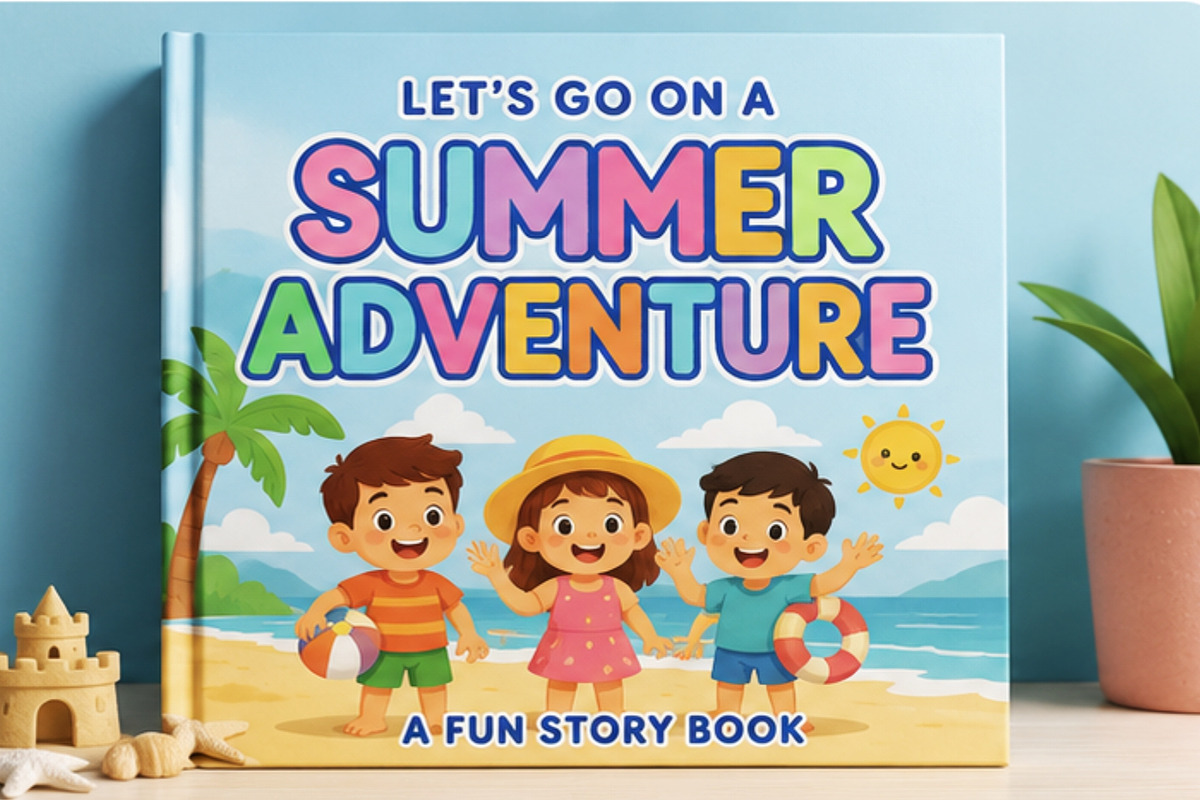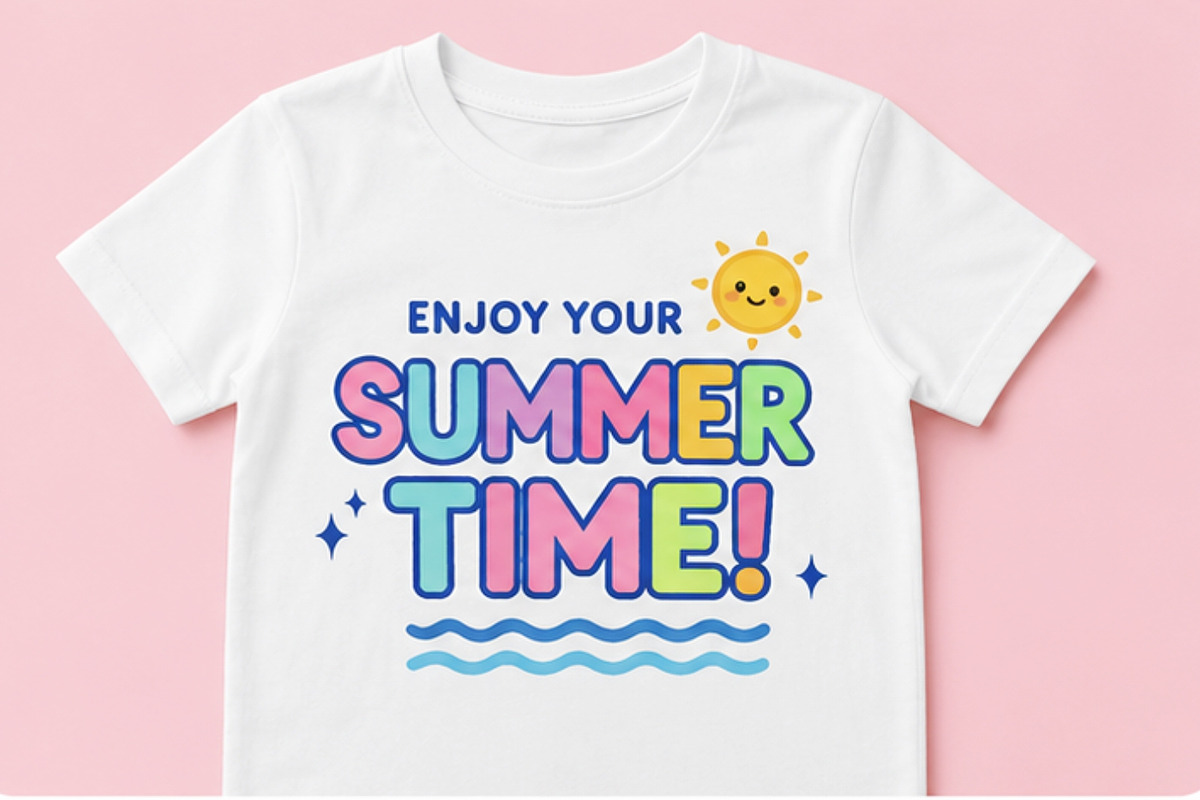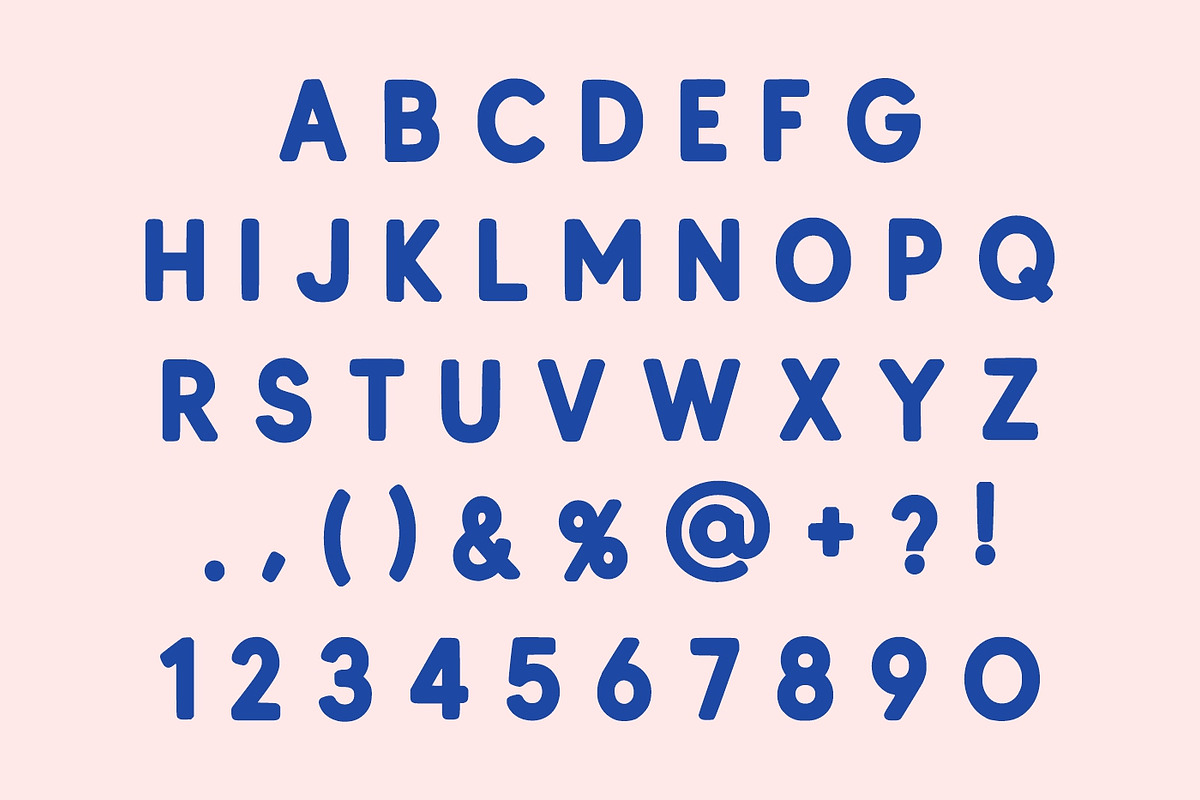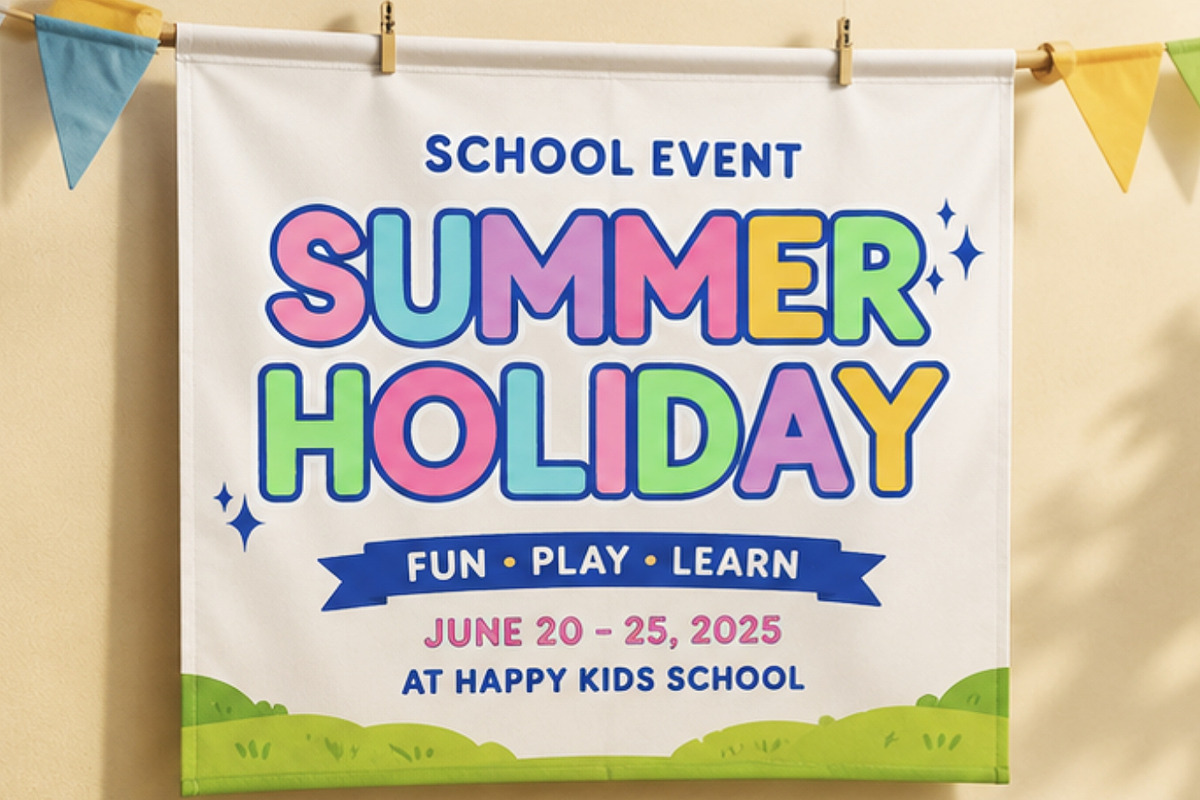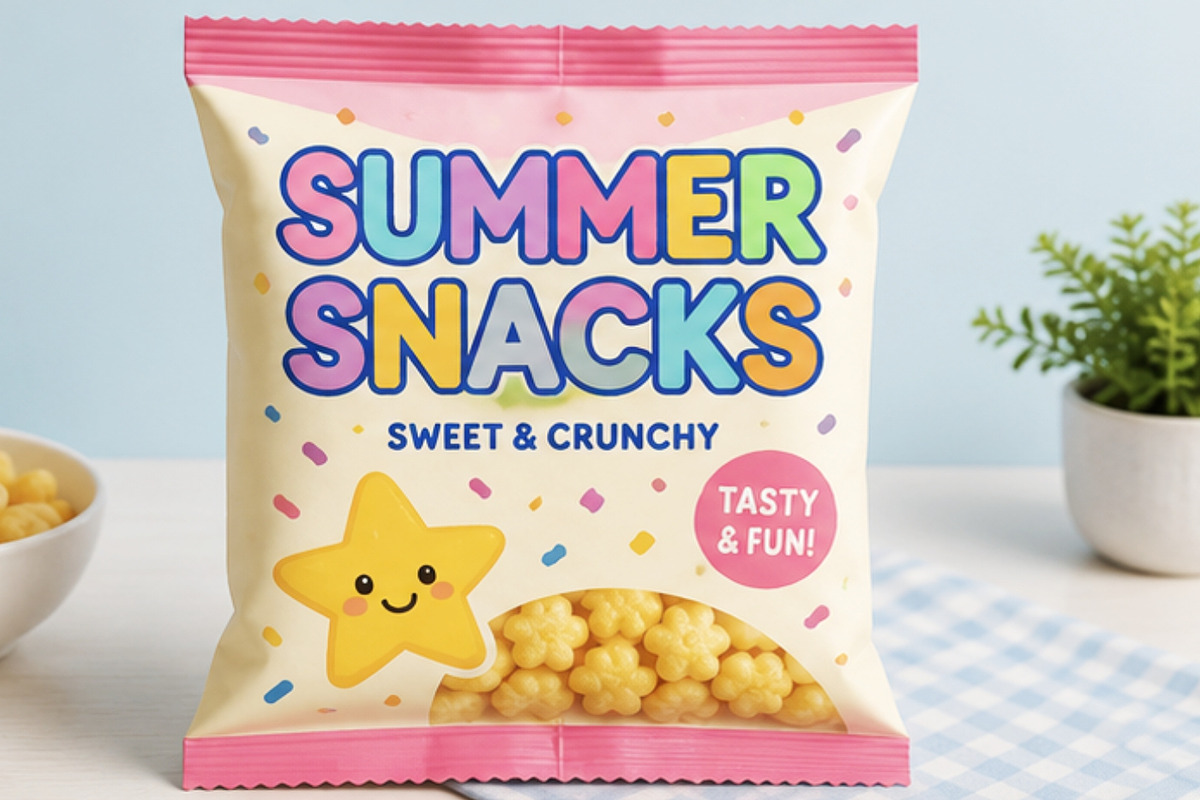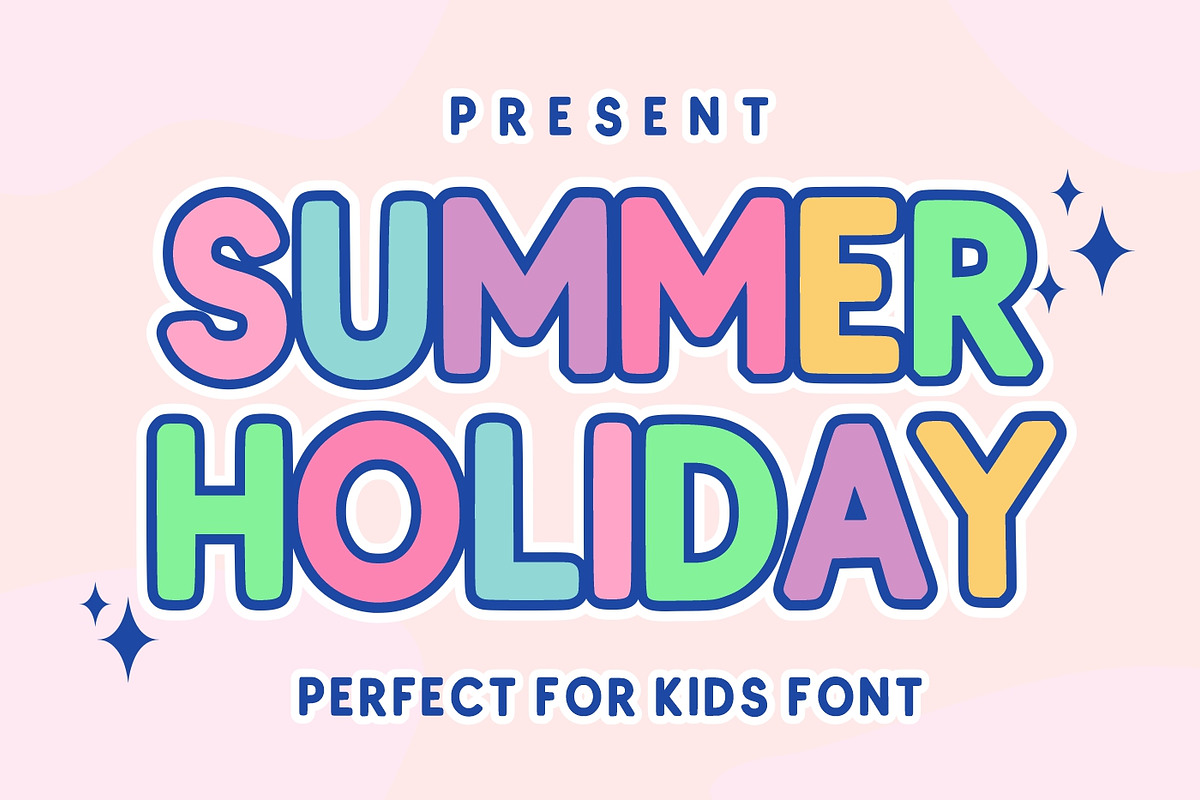
Summer Holiday
Summer Holiday is a fun, cheerful, and colorful kids display font designed to bring happiness, creativity, and playful energy to every project. Featuring rounded letterforms, bold shapes, and a friendly cartoon-inspired style, this font captures the joyful spirit of childhood adventures, summer vacations, and imaginative learning experiences.
Created specifically for children’s projects, Summer Holiday delivers a bright and welcoming appearance that instantly attracts attention. Its playful design makes it perfect for educational materials, storybooks, classroom decorations, toy packaging, birthday invitations, children’s branding, and fun merchandise. The soft curves and bold characters ensure excellent readability while maintaining a cute and entertaining personality.
Inspired by colorful cartoons, playful illustrations, school activities, and family-friendly entertainment, this font is ideal for designers who want to create engaging and memorable visuals for young audiences. Whether you’re designing book covers, activity worksheets, YouTube thumbnails, social media graphics, stickers, nursery decorations, or print-on-demand products, Summer Holiday adds a cheerful and positive touch to every design.
The font works beautifully for both digital and print projects, making it a versatile addition to any creative toolkit. Its vibrant and friendly aesthetic helps communicate fun, excitement, and creativity while remaining professional and easy to use.
Bring smiles, imagination, and playful charm to your designs with Summer Holiday, a delightful kids display font made for colorful and joyful creations.